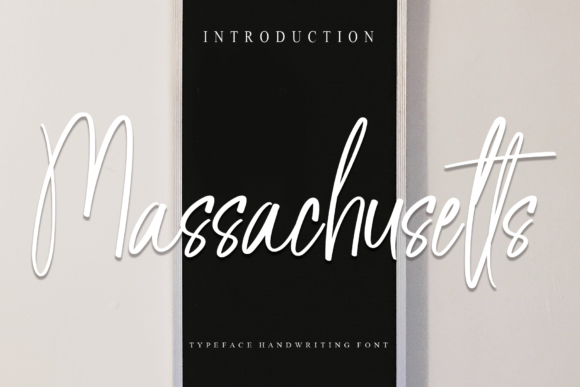
Prepare yourself to be mesmerized by Massachusetts, a script font that exudes elegance and sophistication, meticulously designed by the artistic hands of Roronoa zoro.S.P.D. This font is not just a collection of letters; it's an artistic masterpiece that will transform your digital creations into captivating works of art.
With Massachusetts, you hold the key to unlocking endless possibilities. Its finely tuned curves and intricate details evoke a sense of timeless beauty, making it the perfect choice for any project that demands a touch of classic charm. Whether you're crafting invitations for a special occasion, designing posters for an upcoming event, or simply adding a personal touch to your social media posts, Massachusetts will elevate your words, transforming them into visual masterpieces.
Step into a world of visual delight as Massachusetts takes center stage. Its delicate strokes and harmonious flow will captivate your audience, drawing them into the enchanting realm of your written words. Experience the joy of watching your ideas come alive, adorned with the grace and elegance that only Massachusetts can provide.
Say goodbye to ordinary fonts and embrace the extraordinary with Massachusetts. Its versatility knows no bounds, effortlessly adapting to a wide range of creative endeavors. From whimsical invitations to eye-catching logos, from heartfelt letters to captivating social media posts, Massachusetts becomes an extension of your imagination, breathing life into your every creation.
Elevate your designs to new heights with Massachusetts, a font that embodies the essence of timeless beauty. Its ability to enhance the readability of any script makes it the perfect choice for authors, bloggers, and anyone seeking to make their words shine. Experience the joy of your readers as they effortlessly navigate through your text, immersed in the keindahan of Massachusetts' meticulously crafted characters.
Massachusetts is more than just a font; it's a gateway to a world of endless creative possibilities. Unleash your imagination and let Massachusetts guide you on a journey of visual storytelling. Its captivating charm will leave a lasting impression on your audience, leaving them spellbound by the beauty of your words.